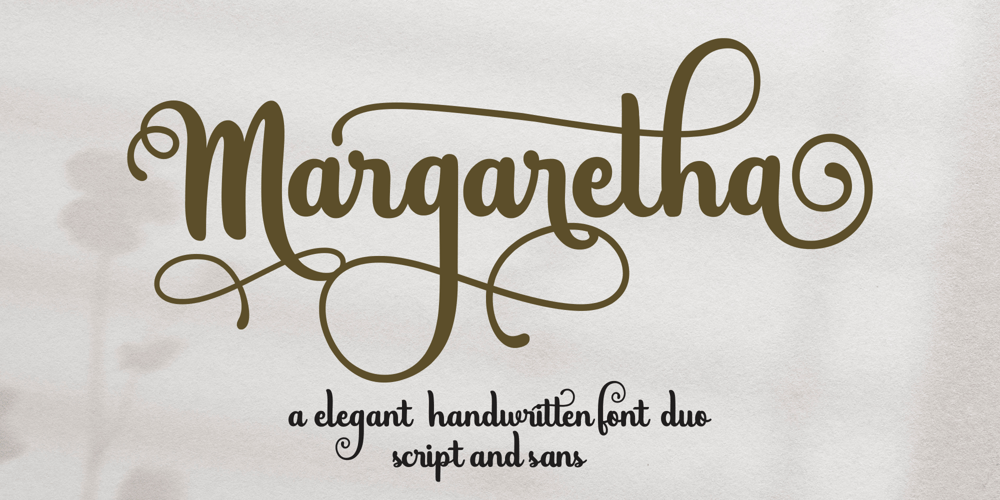
Margaretha Font Family was designed by SU KASIH and published by Mozatype. Margaretha contains 2 styles and family package options. Margaretha is an elegant script font with a contemporary atmosphere and impeccable form, inspired by timeless classic calligraphy. It is an incredibly unique handwritten font.This font is ideal for crafting, branding, and decorates your any project. This font is perfect for wedding invitations or your blog. Also with their help, you can create a logo or beautiful frame for your home. Or use it for your business, book covers, stationery, marketing, magazines, and more.It is PUA encoded which means you can access all of the glyphs and swashes with ease! Fall in love with its incredibly versatile style and use it to create spectacular designs! Use this font for any crafting project that requires a personalized look!What’s Included :- Easy to use ( Installations )- Compatibility Windows, Apple, Linux, Cricut, Silhouette, and Other cutting machinesThank you for purchasing this font. Please appreciate, if you like this.ENJOY it 🙂